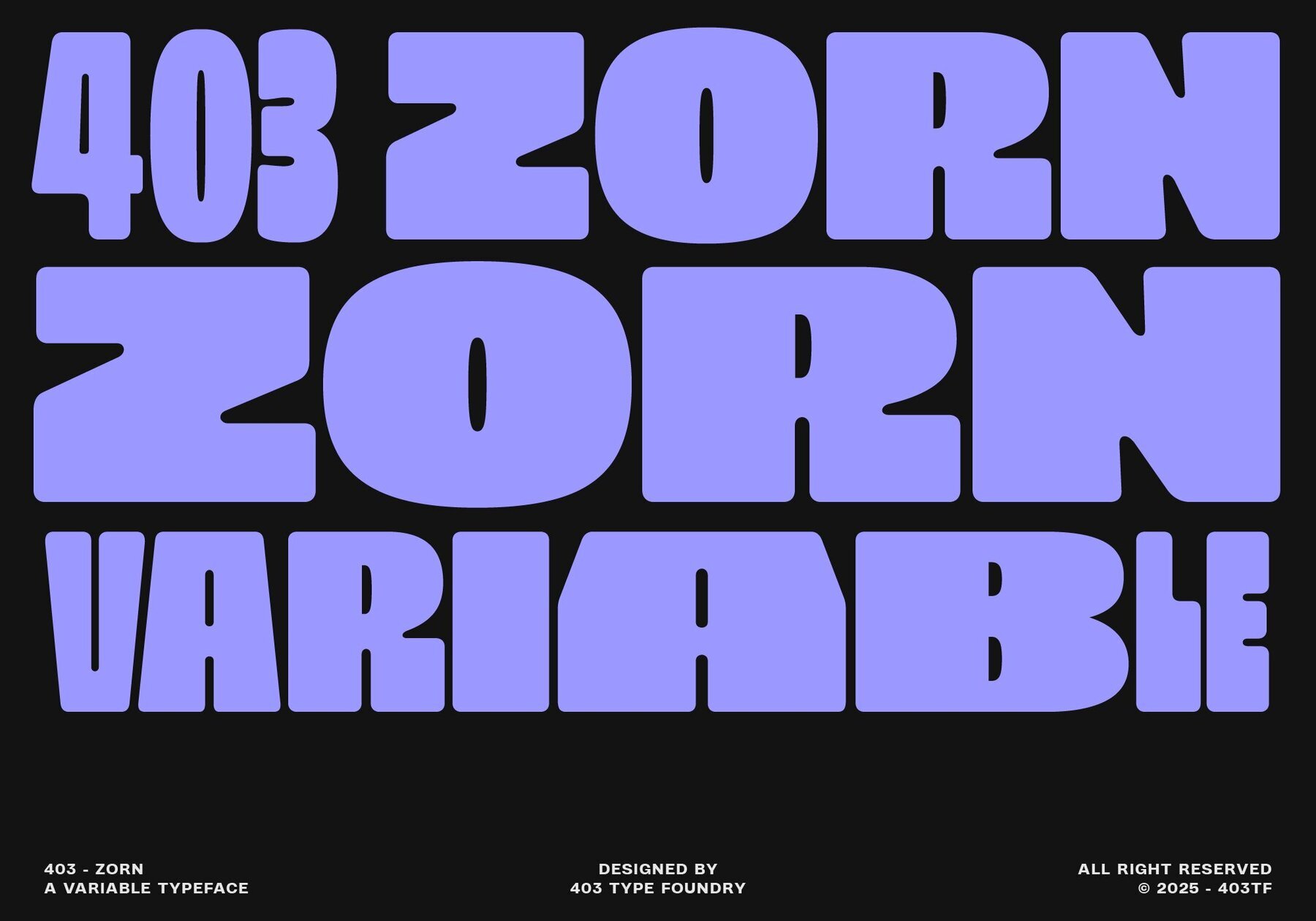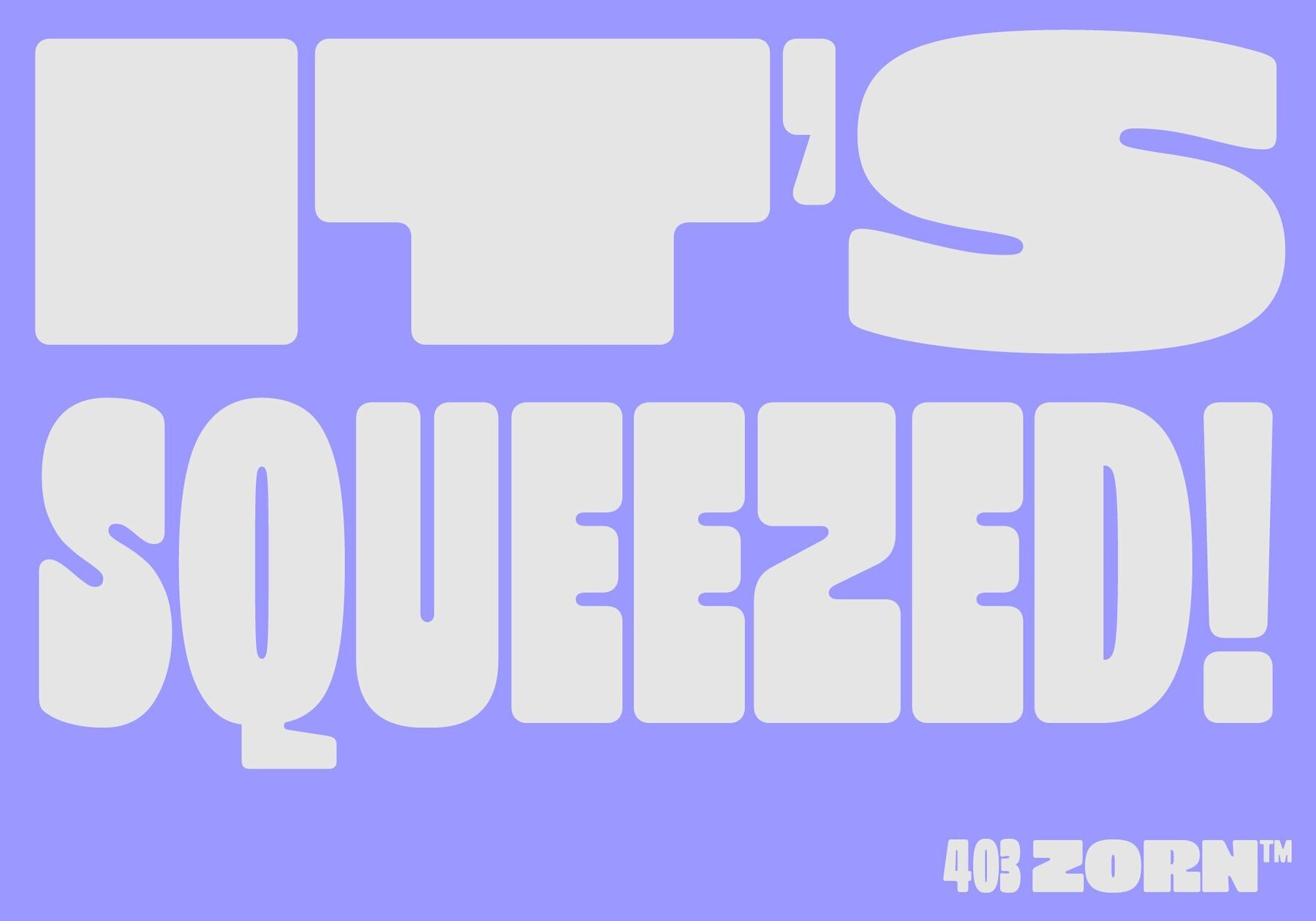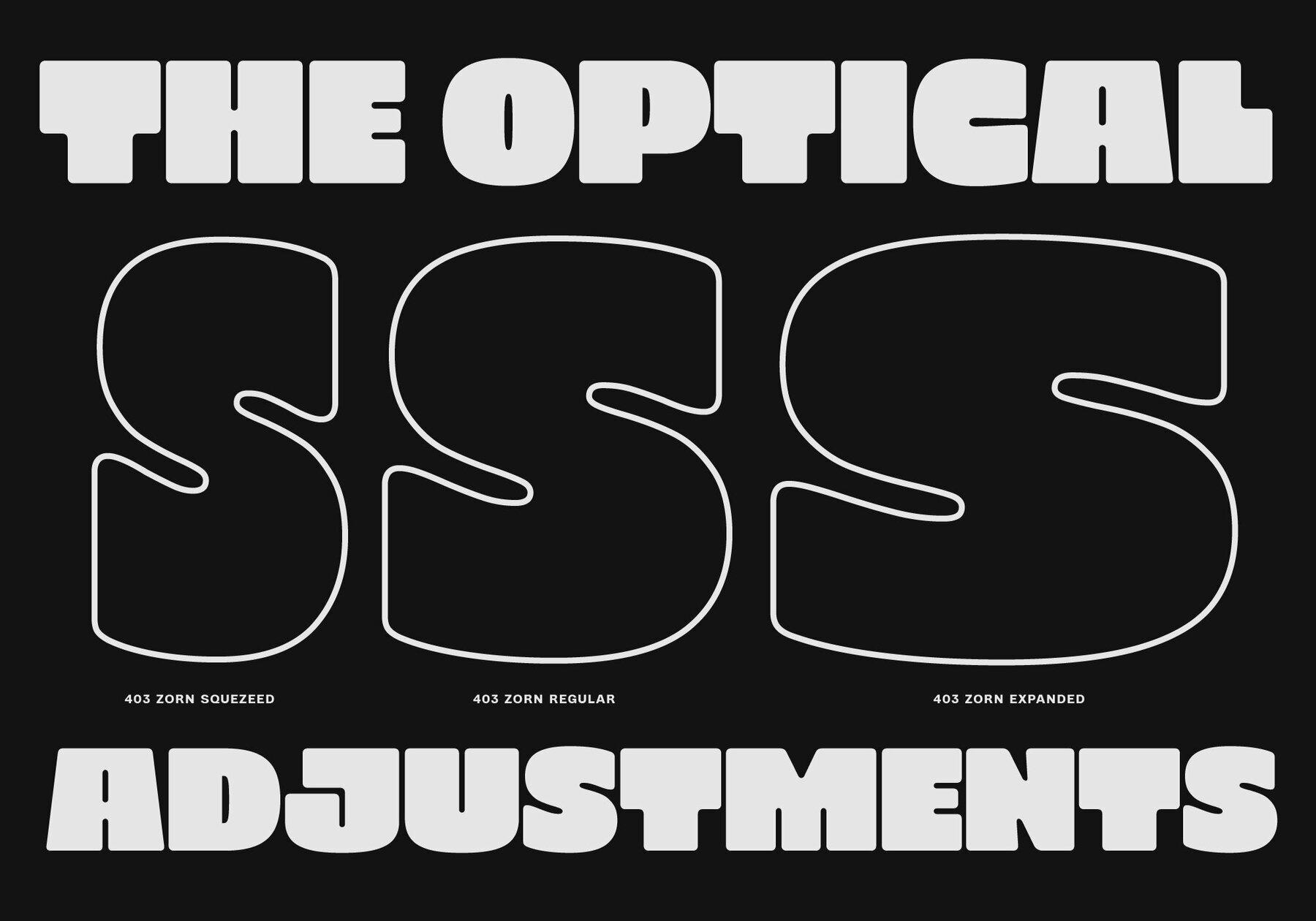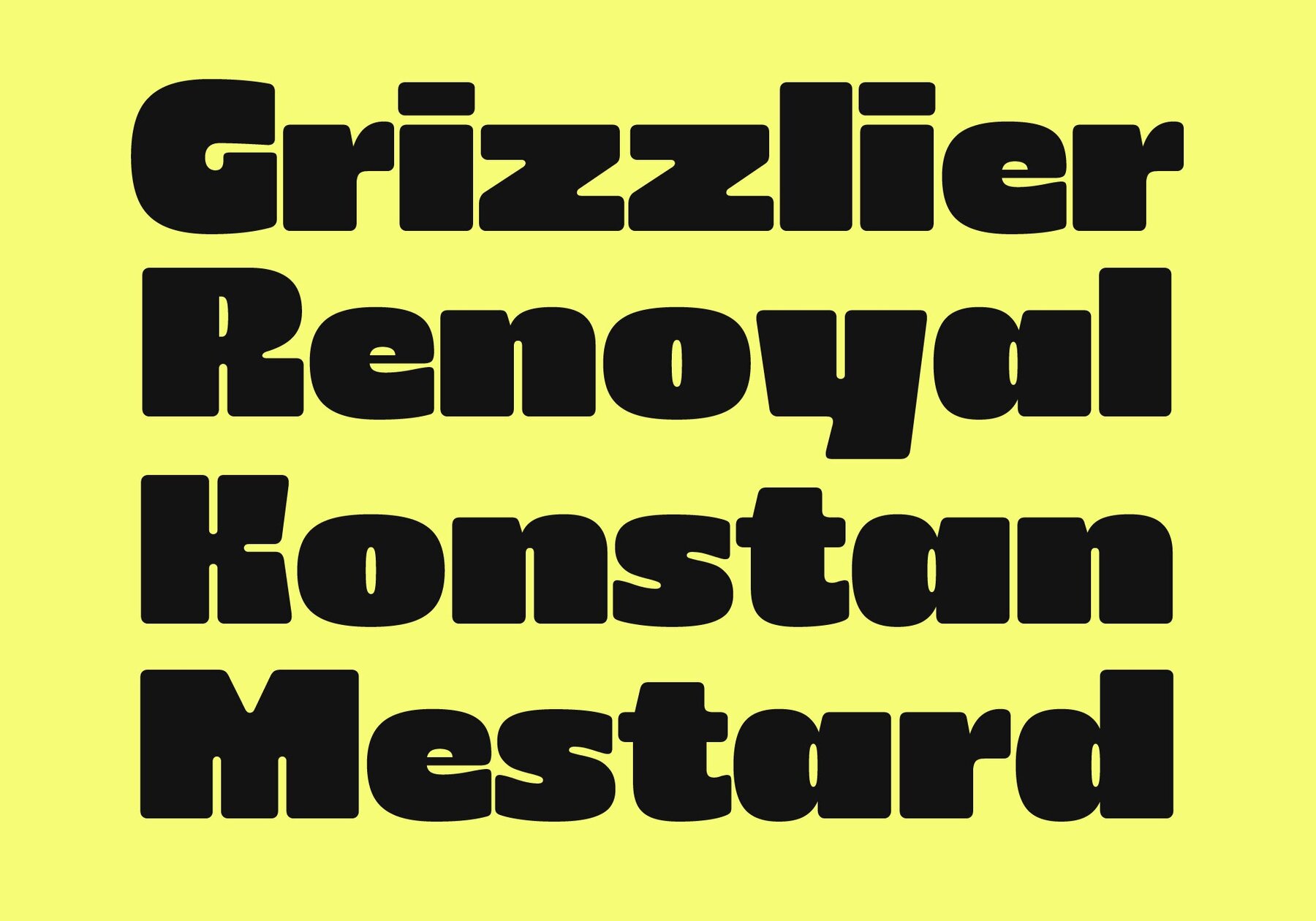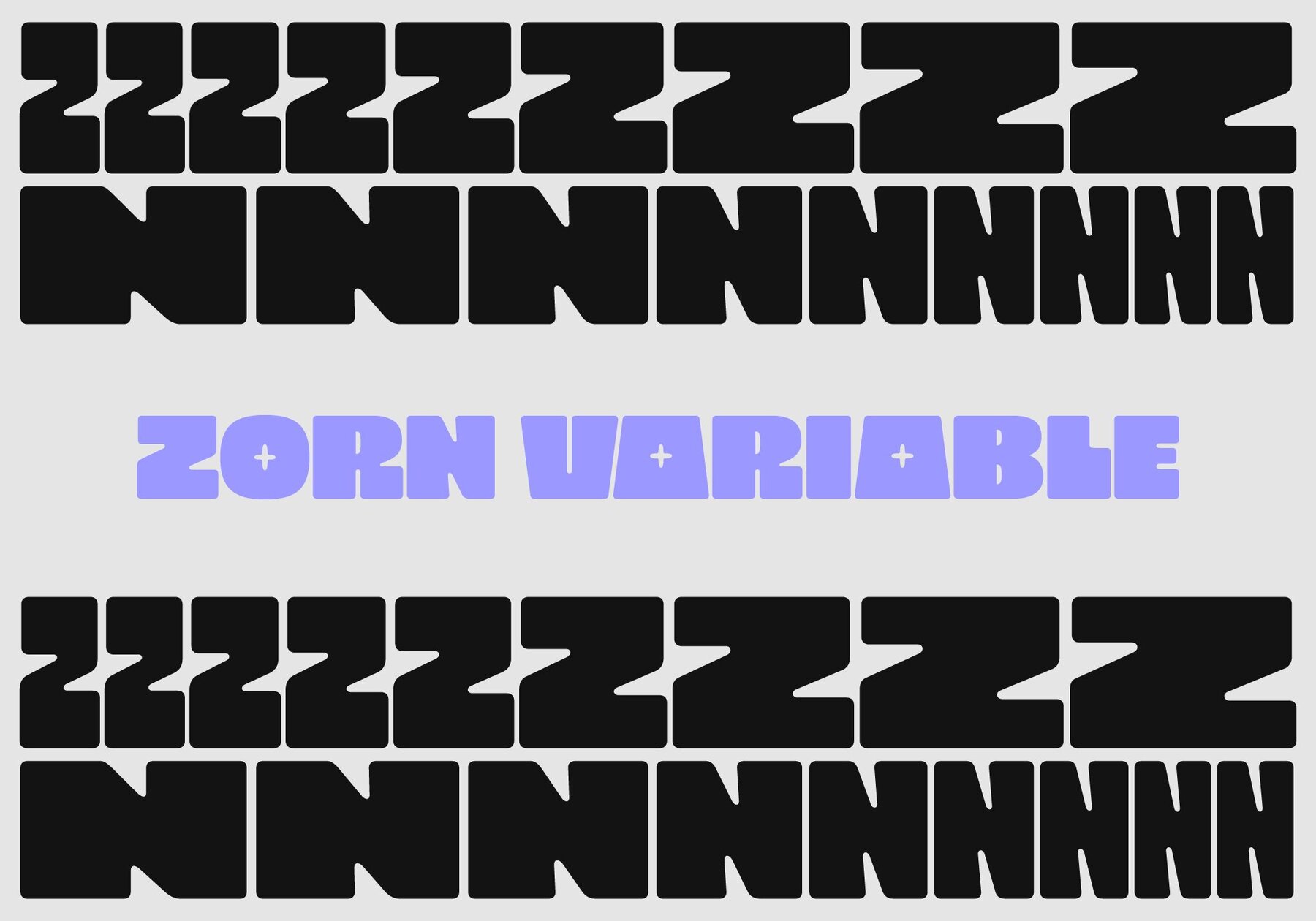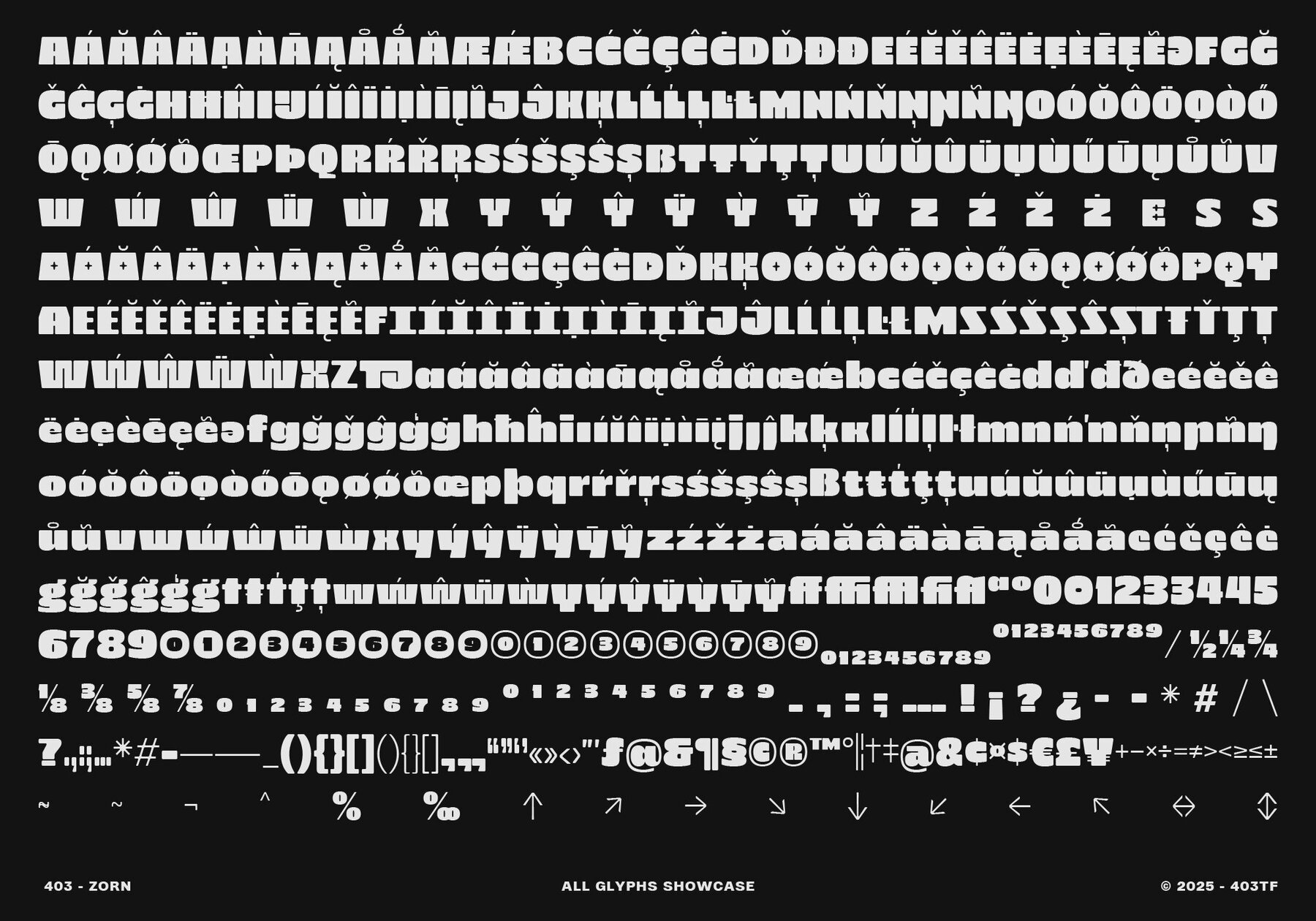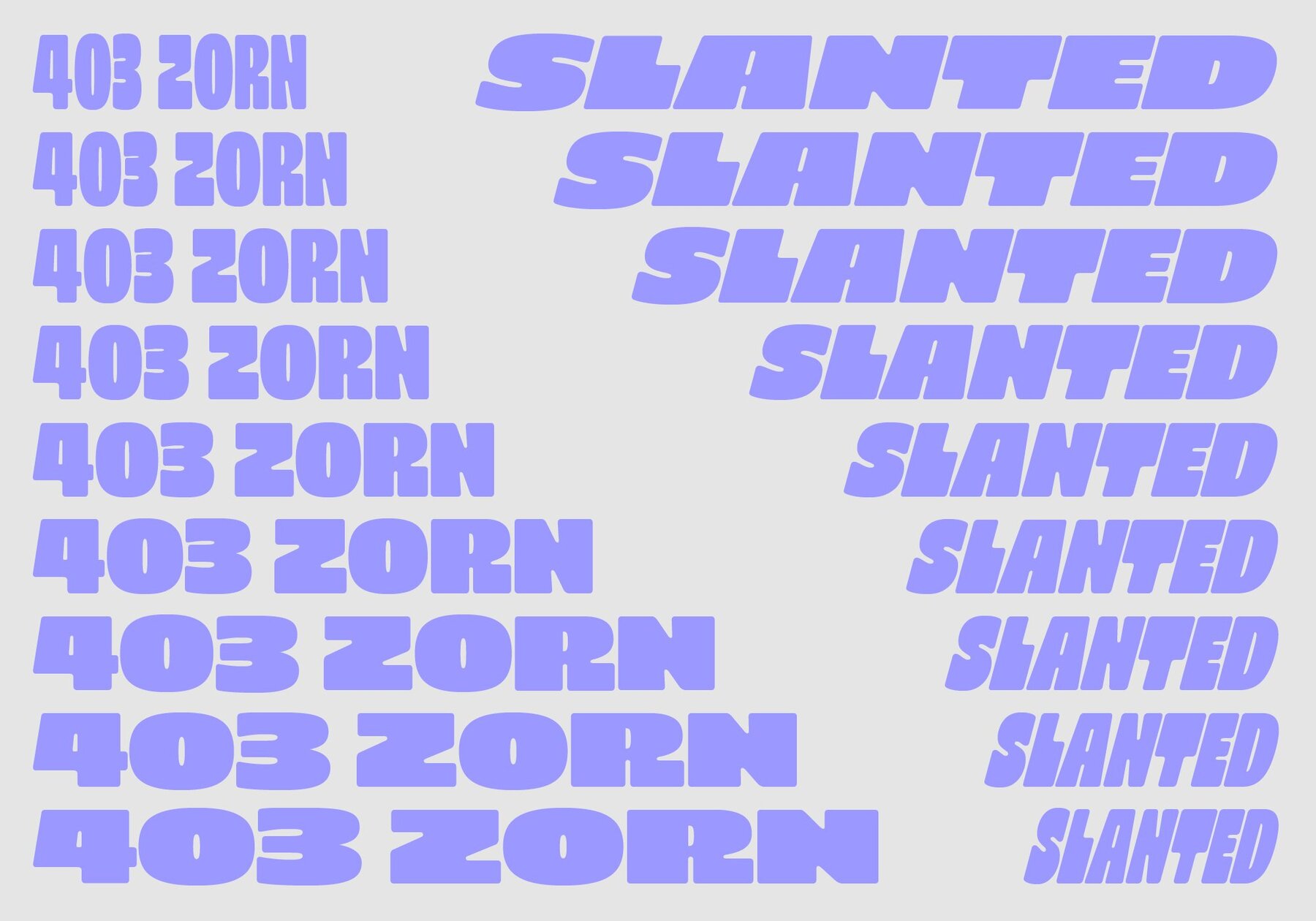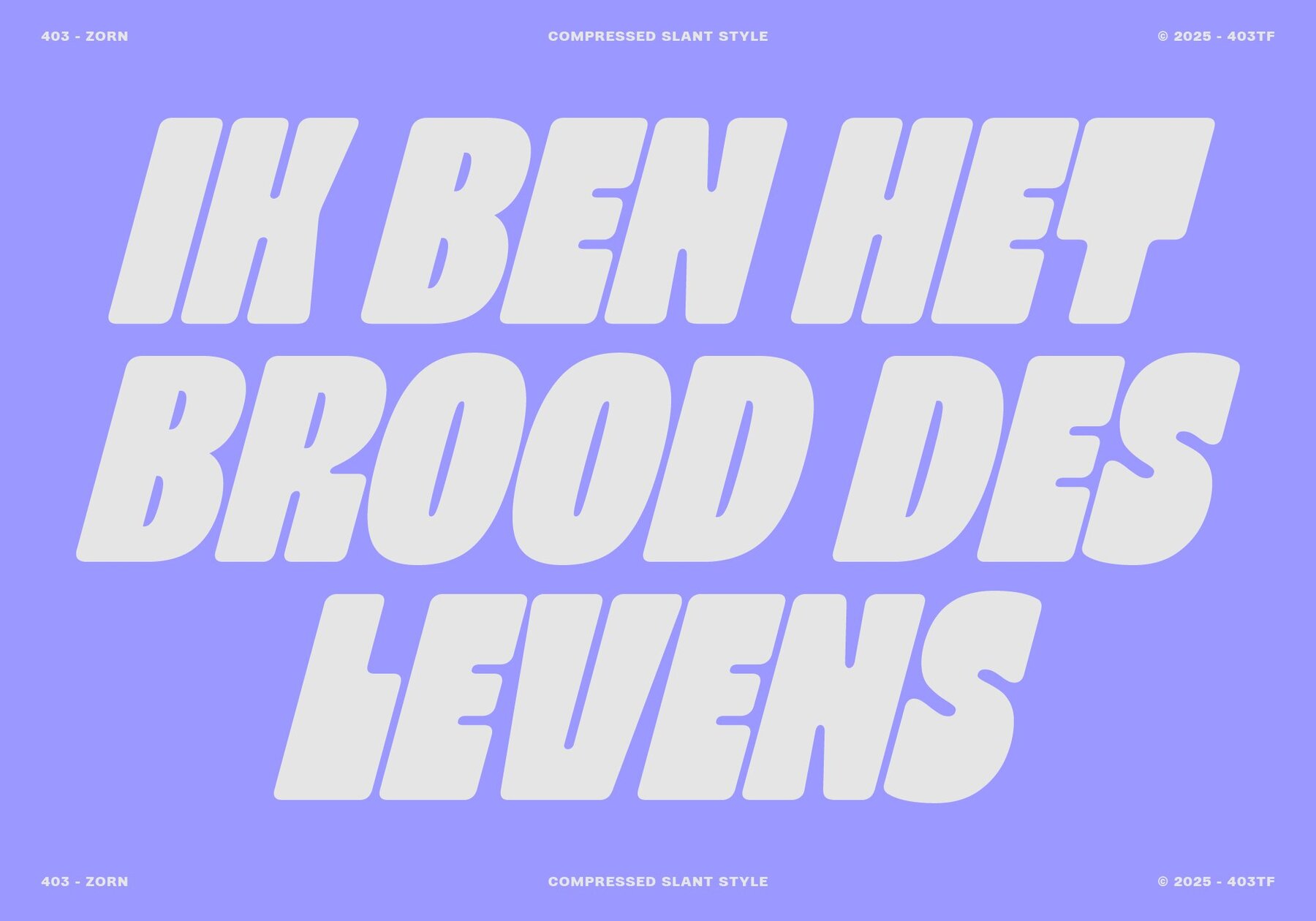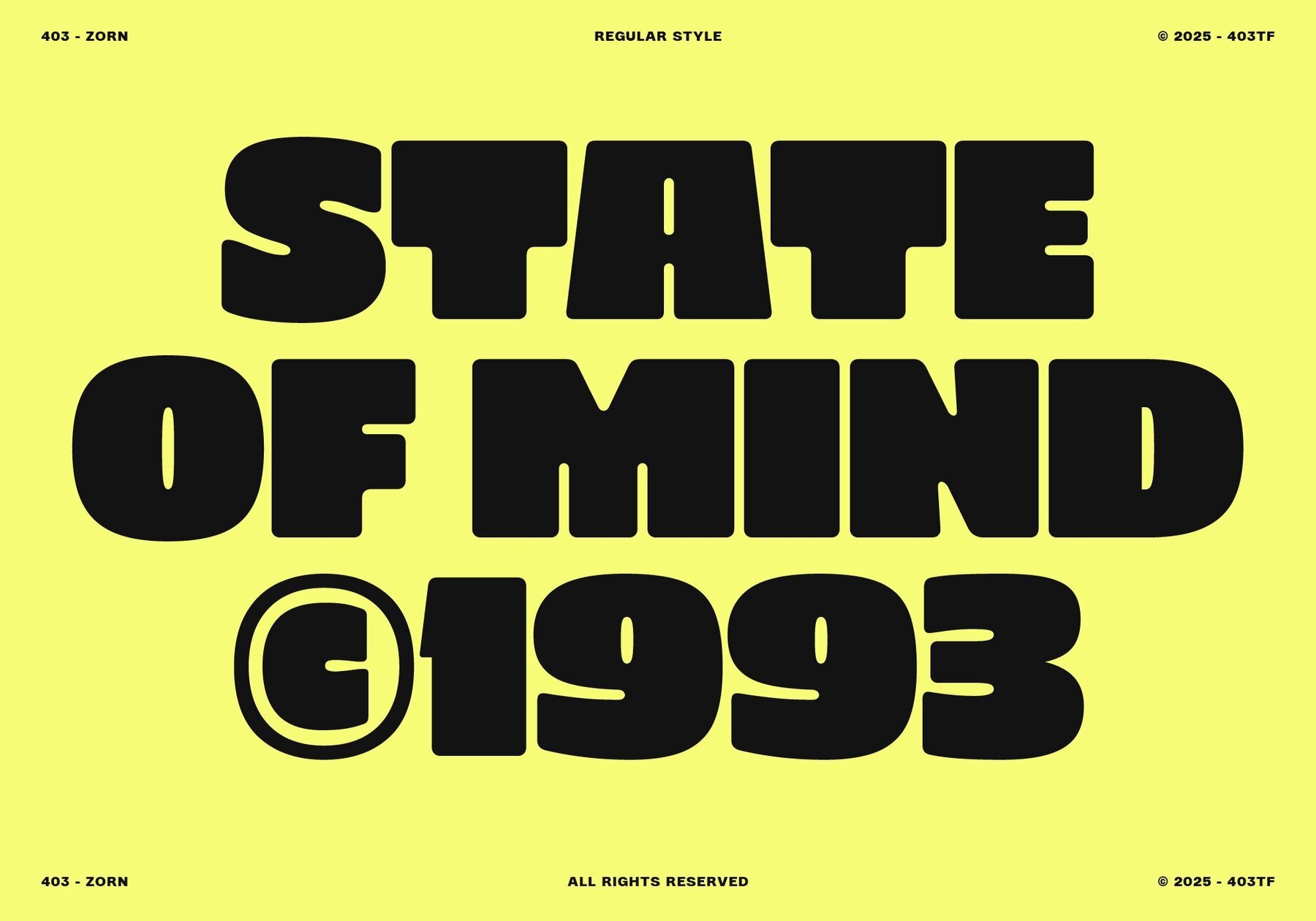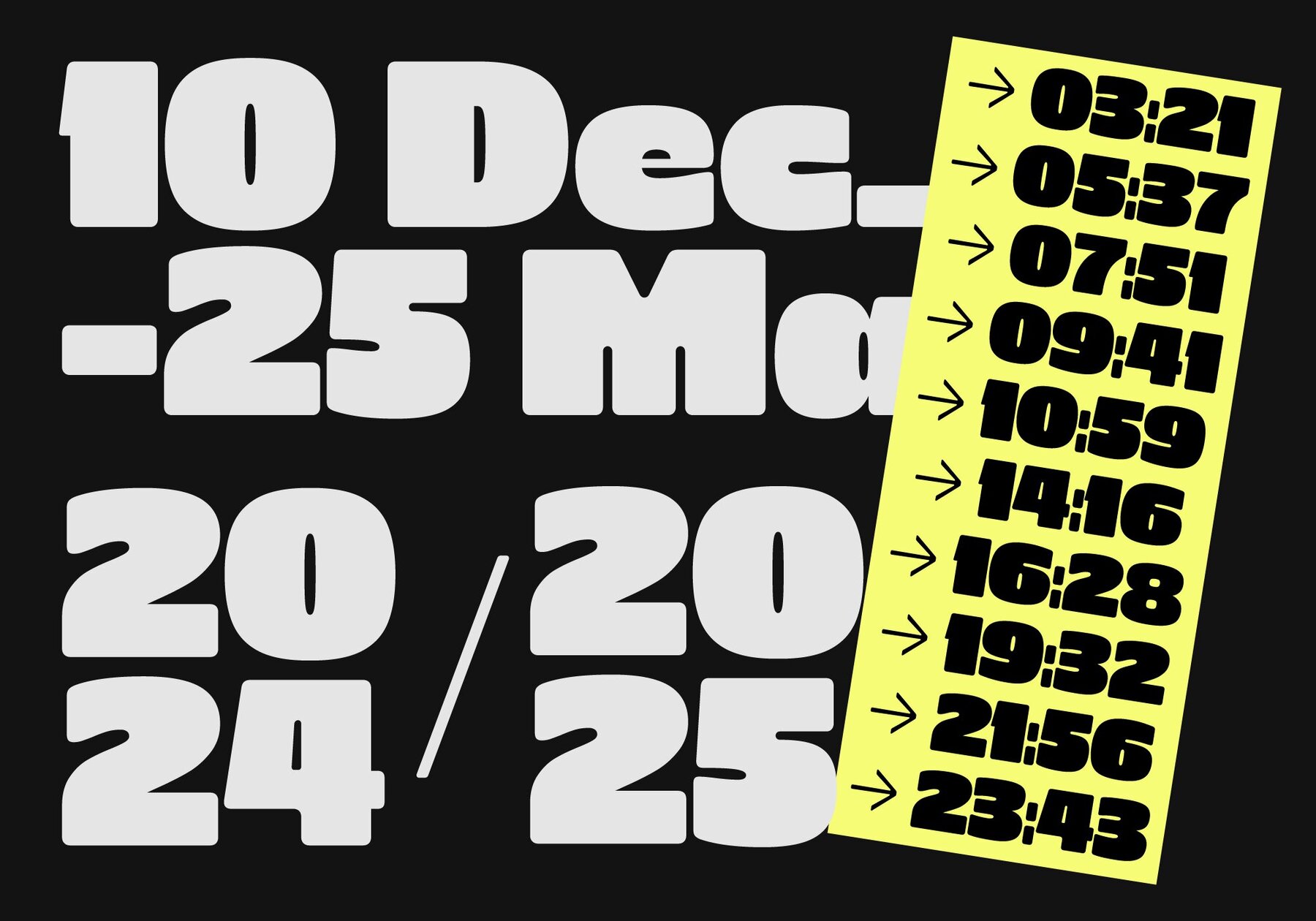
403 Zorn Font
403 Zorn is a bold and flexible display typeface made to grab attention. With 18 styles—both regular and slanted—it gives you full creative control to design loud, clear, and unforgettable visuals. Whether you're working on streetwear, posters, or bold branding, Zorn helps your message stand out with strong style and personality. This font is built on a fun and fearless design idea. Its thick, blocky letters are shaped to feel bold and playful at the same time. The smooth corners give it a friendly look, while the wide and heavy forms demand attention. Every letter is made with care to feel fresh and different—but still easy to read. Zorn isn't about fitting in—it’s about standing out. 403 Zorn is perfect for creatives who want their work to make a statement. It’s ideal for graphic designers, streetwear brands, music posters, bold websites, and anyone who wants their type to speak loud and clear. It works best in big sizes where its bold style really shines. Features: If you want a typeface that turns heads and makes your work unforgettable, 403 Zorn is for you. Try it today and bring bold energy to your next project.